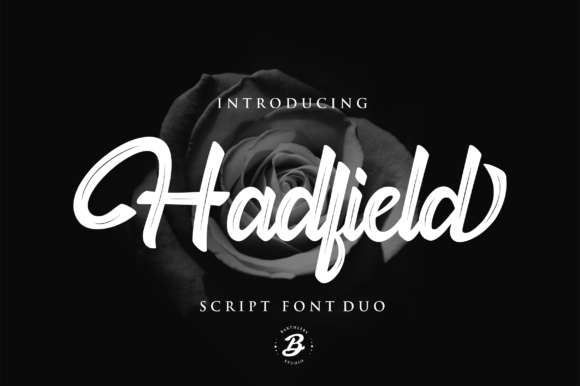
Introducing Hadfield Script Font: A Journey Through Elegance and Style
In the realm of typography, Hadfield Script Font stands as a masterpiece, a testament to the power of creativity and expression. With its graceful curves and elegant strokes, this font weaves magic into every word, transforming ordinary text into an enchanting tapestry of visual delight.
Step into a world of sophistication as you embrace Hadfield Script, a font family tailored to elevate your designs to new heights. Its meticulously crafted characters dance across the page, evoking a sense of timeless beauty that captivates and inspires. Whether you're a seasoned designer or just starting your creative journey, Hadfield Script is your key to unlocking endless possibilities.
With two captivating variations—strip and regular—Hadfield Script adapts effortlessly to a myriad of projects. Unleash your imagination and adorn your watermarks, posters, and social media posts with a touch of elegance. Transform your logos and branding into works of art, leaving a lasting impression on your audience. Elevate product designs and labels with intricate details that whisper luxury and sophistication.
Explore the boundless versatility of Hadfield Script, where creativity knows no limits. Its graceful strokes lend themselves to a symphony of applications, from invitations and greeting cards to wedding stationary and packaging. Each letter, a brushstroke of artistry, adds a touch of magic to every creation, turning the mundane into the magnificent.
Immerse yourself in the world of Hadfield Script, where beauty and functionality intertwine. Experience the joy of crafting designs that resonate with your audience, leaving them spellbound by the sheer brilliance of your creations. Let Hadfield Script be your muse, guiding you towards typographic excellence.